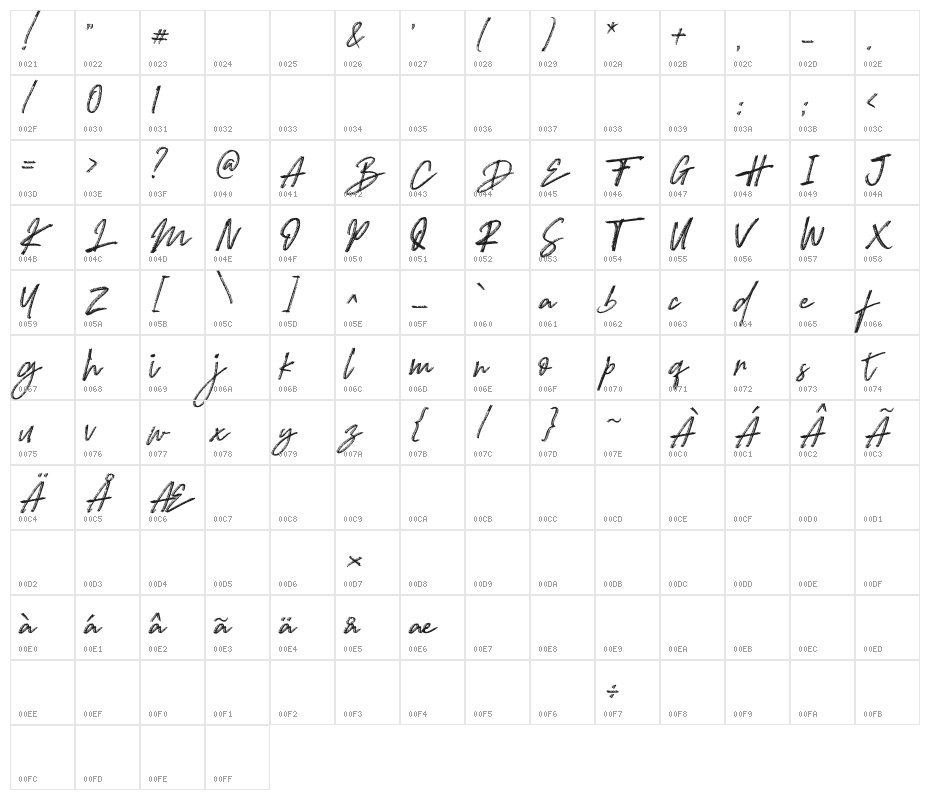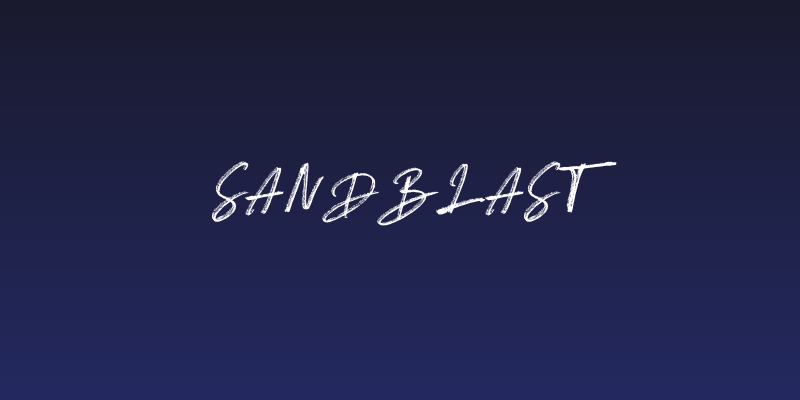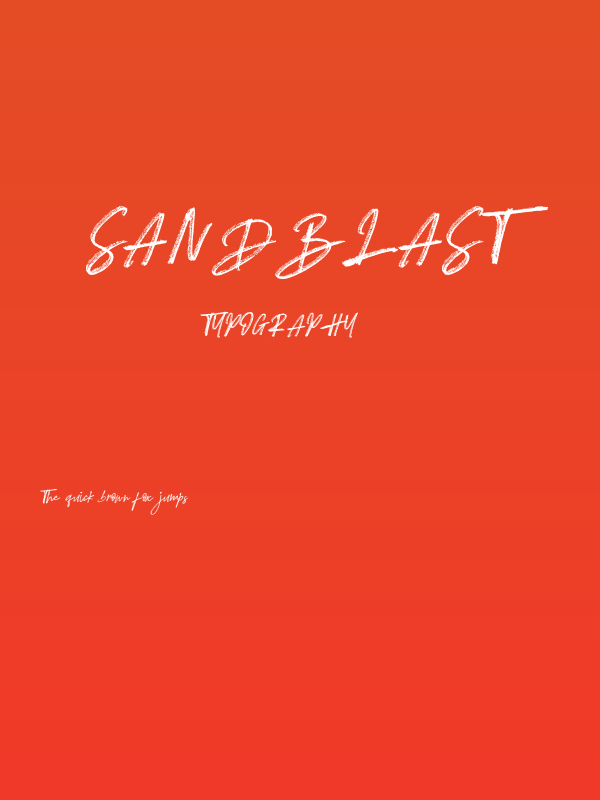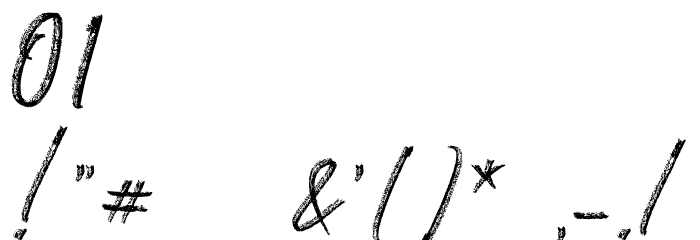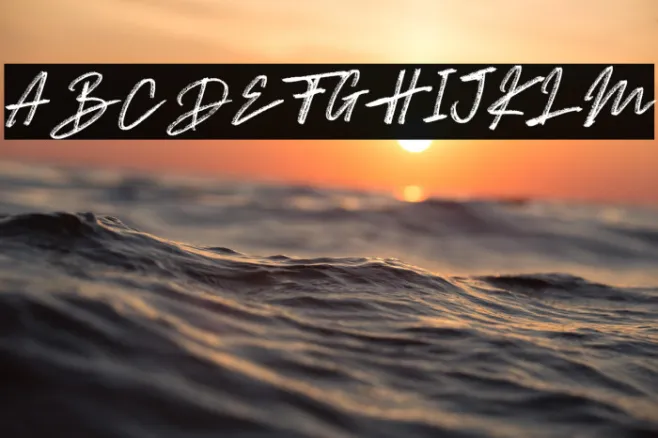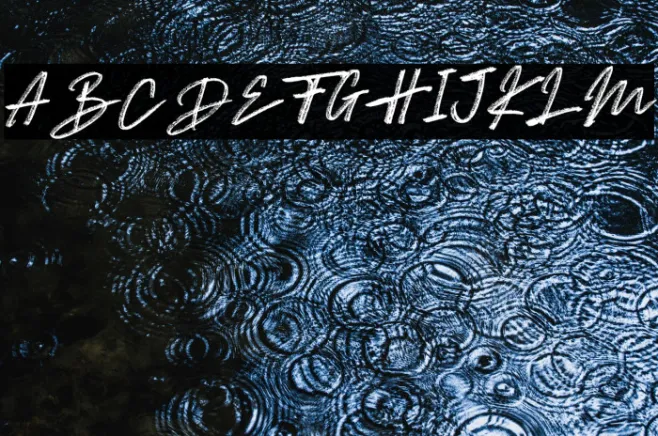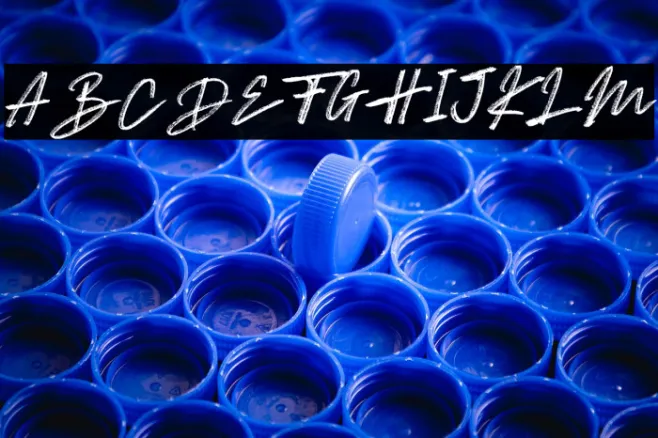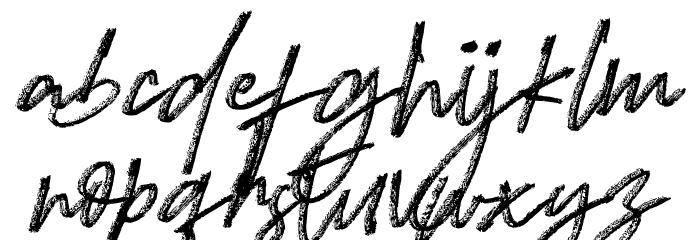
Sandblast Font
Sandblast Description
This font features a dynamic and energetic script style, characterized by its bold, sweeping strokes and a textured, hand-drawn appearance. The uppercase letters exhibit a strong, confident presence with a slight slant, while the lowercase letters maintain a fluid, cursive flow. The numerals and special characters complement the overall aesthetic with their consistent, artistic flair. The texture gives it a gritty, sandblasted look, adding depth and personality to the design. This font is ideal for projects that require a personal, handcrafted touch, such as branding, packaging, or creative posters.
| Use Case | Logos, headlines, artistic projects. |
| Proposed Projects | Branding, packaging, creative posters, invitations, and artistic designs. |